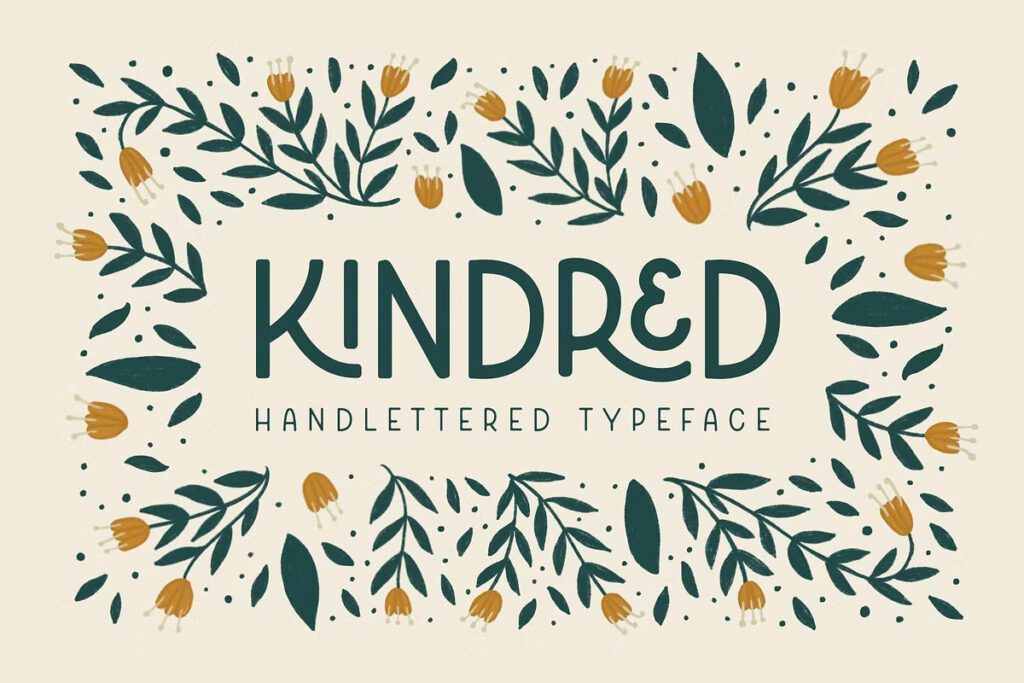
Add a Hand-Lettered Charm with Kindred Handlettered Typeface
Looking for a font that blends organic warmth with a friendly, hand-drawn feel? Introducing Kindred Handlettered Typeface, a versatile and beautiful sans-serif font designed to elevate your branding, social media posts, and marketing projects. Created by Rachel Kick, this font offers the perfect balance between natural elegance and handcrafted charm.
Why Kindred Typeface is Perfect for Your Design Projects
1. Hand-Lettered AestheticKindred is inspired by traditional hand-lettering art, featuring carefully designed letters that seem to effortlessly fit together. With slightly rounded corners, this font exudes a welcoming and organic feel, ideal for branding, invitations, social media graphics, and more. If you’re aiming for a custom, hand-drawn look, Kindred delivers beautifully.
2. Variety of StylesWith six different styles to choose from—Light, Regular, Bold, as well as Rounded Light, Rounded Regular, and Rounded Bold—Kindred offers immense flexibility for your designs. You can mix and match weights to create a unique look, perfect for both casual and professional projects.
3. Extensive Glyphs and LigaturesKindred offers an impressive collection of 281 glyphs, including uppercase letters, numbers, punctuation, and a variety of language support options. It also includes over 34 standard ligatures and 90 alternatives, giving you the ability to truly customize each word and make it look like it was hand-drawn specifically for your project. The built-in swashes and ligatures create a seamless, authentic lettering style that makes your designs stand out.
4. Perfect for Branding & Social MediaIn a world where authenticity stands out, Kindred’s hand-lettered, organic feel adds a personal touch to branding and social media designs. Its friendly, approachable style is perfect for everything from marketing campaigns to product packaging, making it a go-to font for brands that want to communicate warmth and creativity.
5. Easy to CustomizeWith its variety of alternatives, ligatures, and styles, Kindred offers endless customization possibilities. Whether you’re creating logos, crafting social media posts, or designing a website, you can easily tweak each word to fit the tone of your project. The typeface also supports multiple languages, allowing for versatility in international projects.
Key Features of Kindred Handlettered Typeface
281 Glyphs: Uppercase, numbers, punctuation, and language support for several languages including Danish, French, German, Spanish, and more.
34 Standard Ligatures: Enabled by default for a natural, hand-drawn effect.
90+ Alternatives: Add details and personalize your designs with a range of letter variations and swashes.
6 Styles: Including Light, Regular, Bold, and their rounded counterparts, for maximum versatility in your designs.
Language Support: Available for languages such as English, Portuguese, Swedish, Italian, and more.
If you’re looking for a typeface that feels personal, friendly, and handcrafted, Kindred Handlettered Typeface is a must-have. Its organic aesthetic, combined with a wide range of customization options, ensures that your design projects feel truly one-of-a-kind. Whether for branding, marketing, or social media, Kindred will help your designs stand out and make a lasting impression.